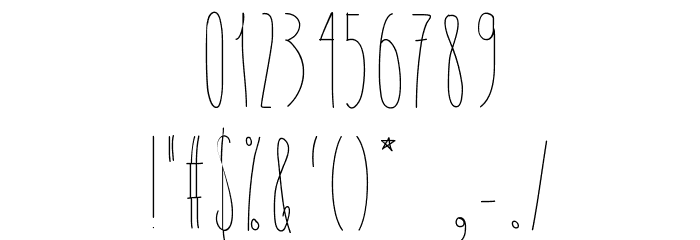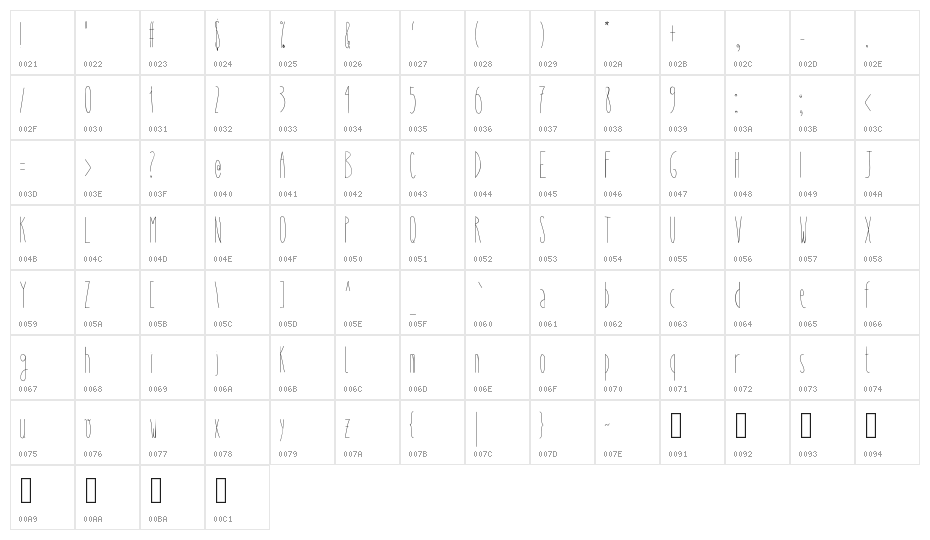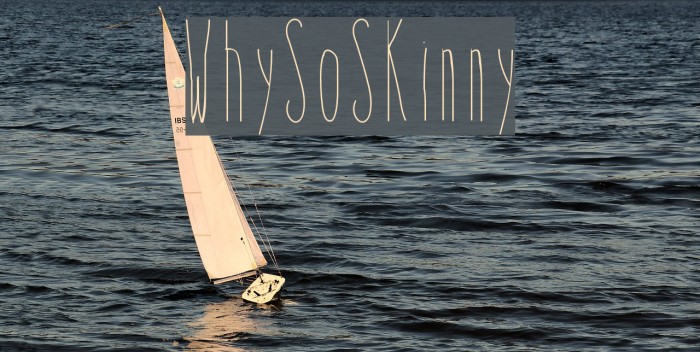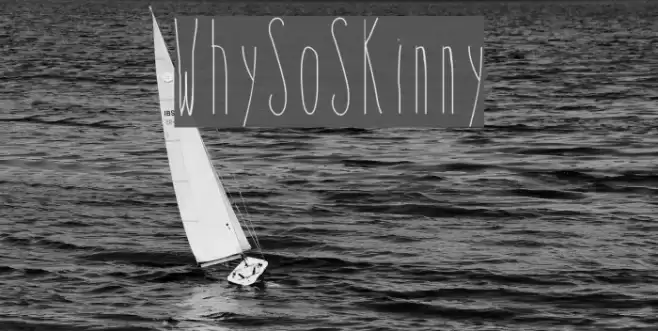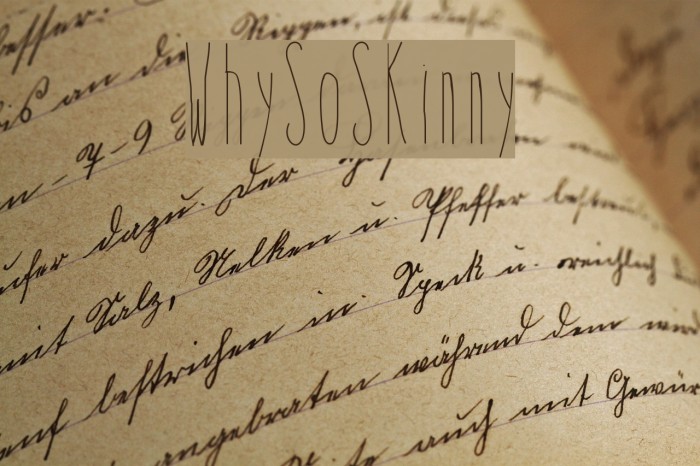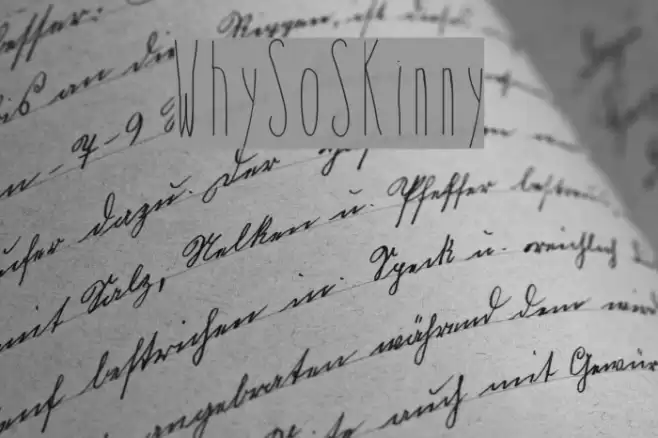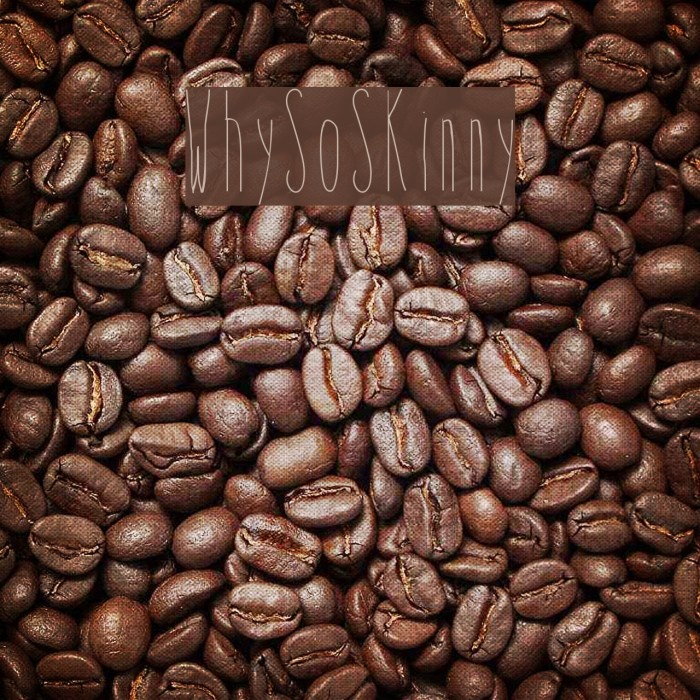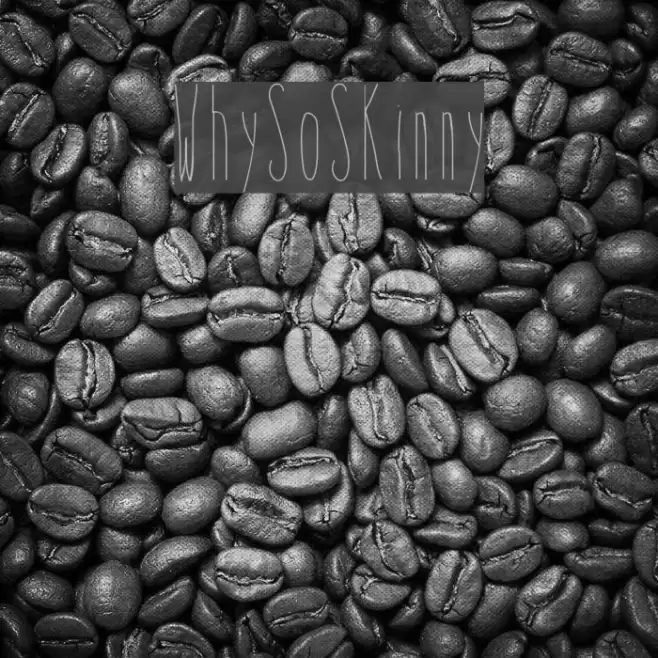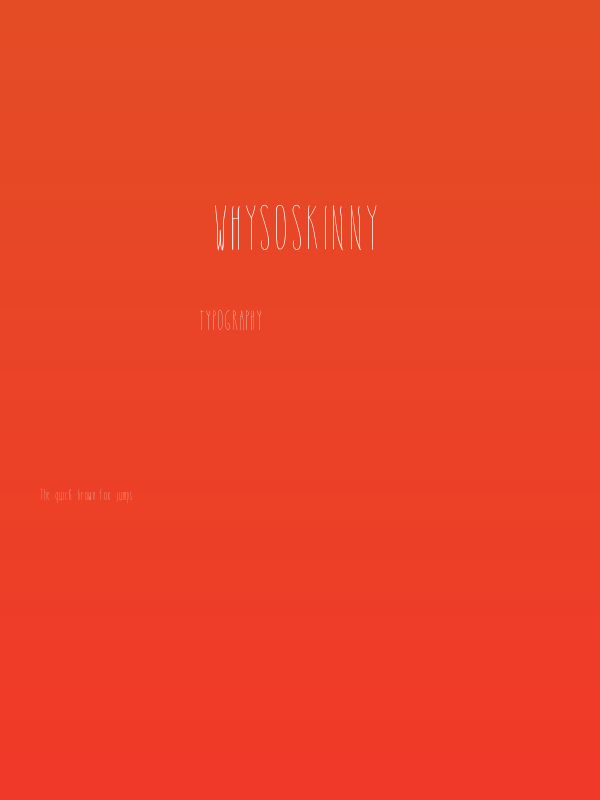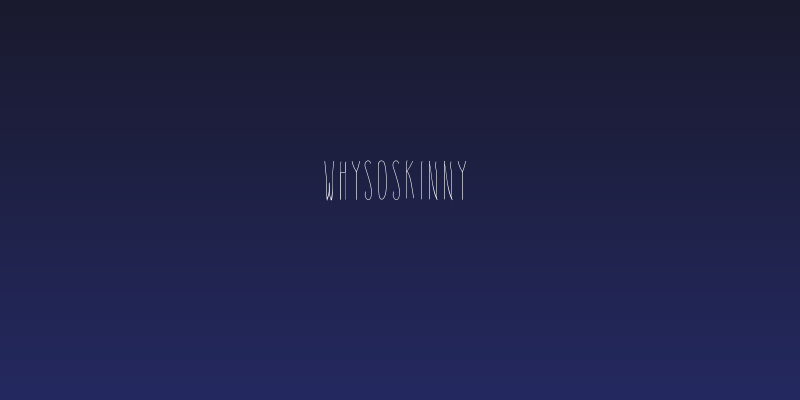
WhySoSkinny Font
WhySoSkinny Description
This font features an ultra-thin, elongated design that gives it a distinctive, airy appearance. The characters are tall and narrow, with a consistent stroke width that maintains a delicate and elegant look. The uppercase letters are particularly elongated, creating a striking vertical emphasis. The lowercase letters follow a similar style, maintaining the slender and graceful aesthetic. The numerals and special characters are designed to match the overall thin and elongated theme, ensuring a cohesive look across all text. This font's minimalistic and modern design makes it suitable for projects that require a touch of sophistication and elegance.